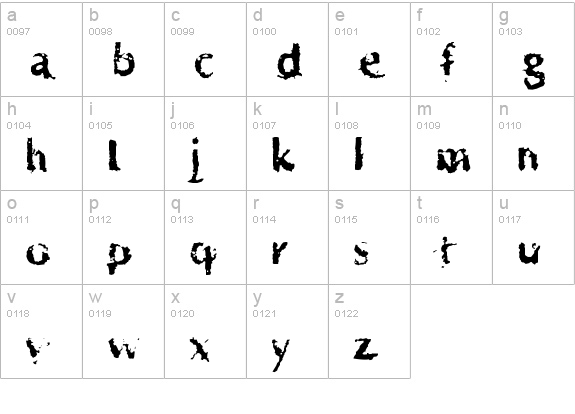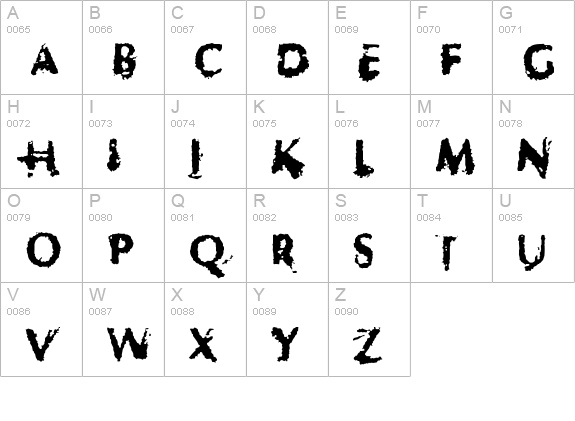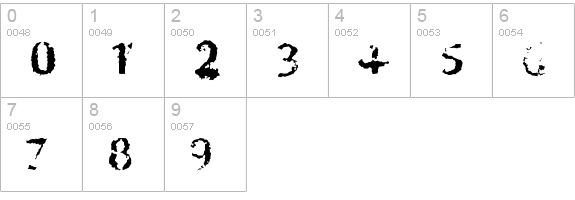
Horrendous Font Details
Horrendous font is a striking display typeface that exudes a sense of boldness and edginess. With its sharp angles and distinct letterforms, this font is perfect for making a statement in your designs. The Horrendous font is characterized by its unique blend of modernity and ruggedness, making it a versatile choice for various projects such as poster designs, branding, and more. The best part about Horrendous font is that it is available for free download at FontsMarket.com. This means you can easily add this eye-catching font to your collection without any cost. Don't miss out on the opportunity to enhance your design projects with the Horrendous font - download it now and unleash your creativity!